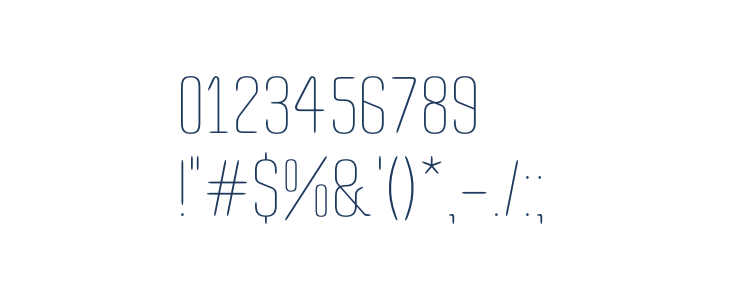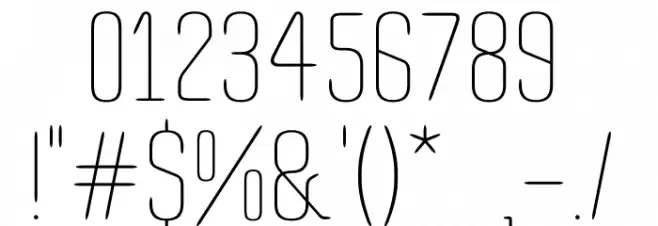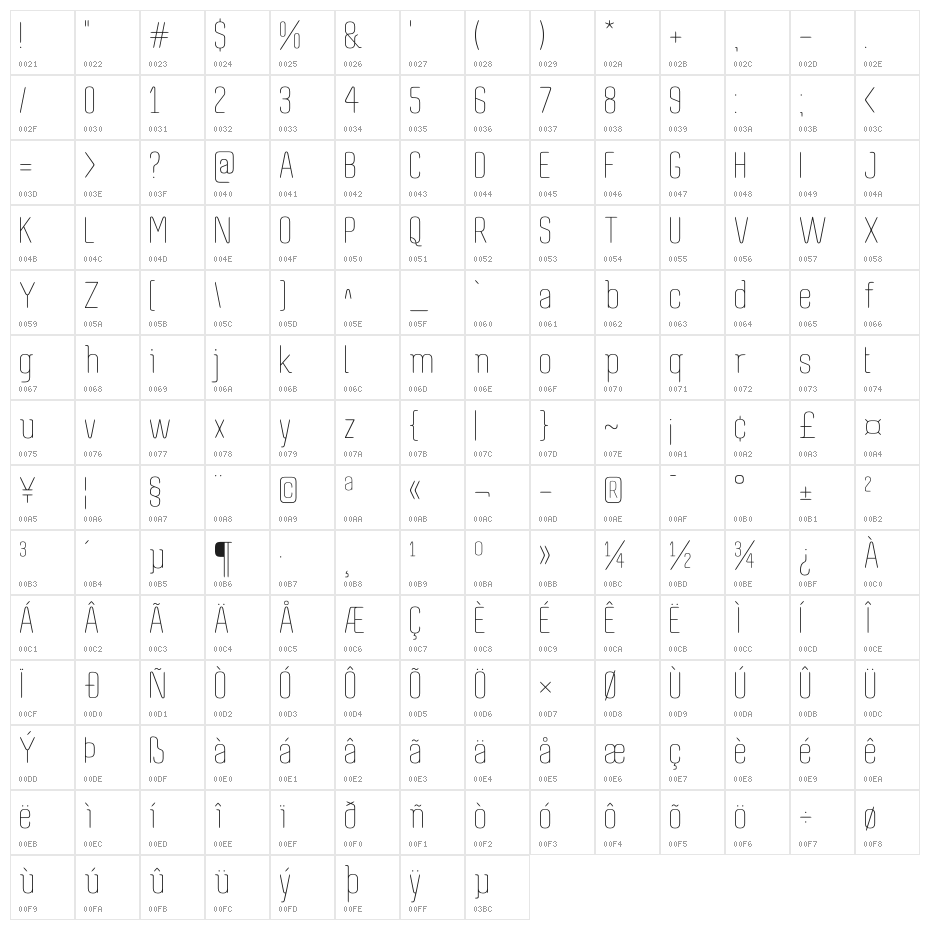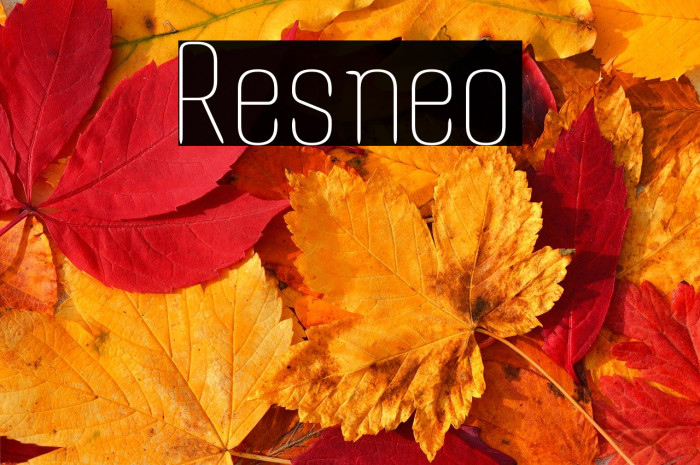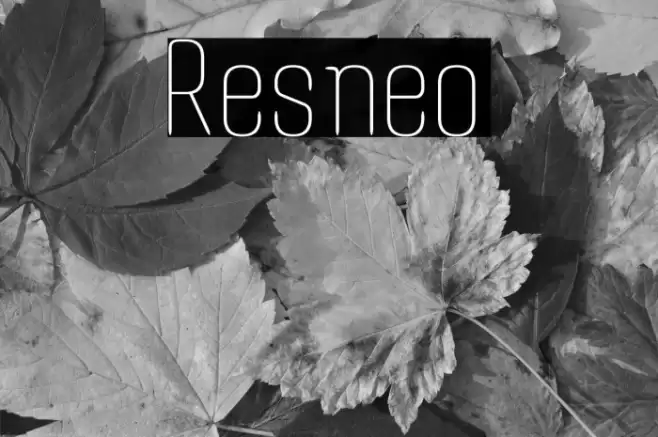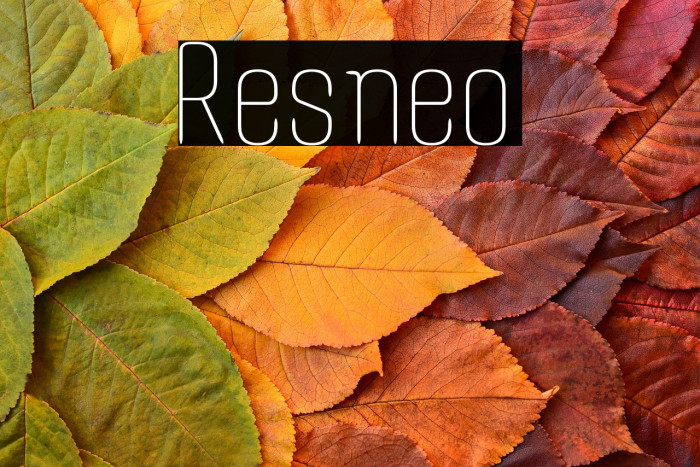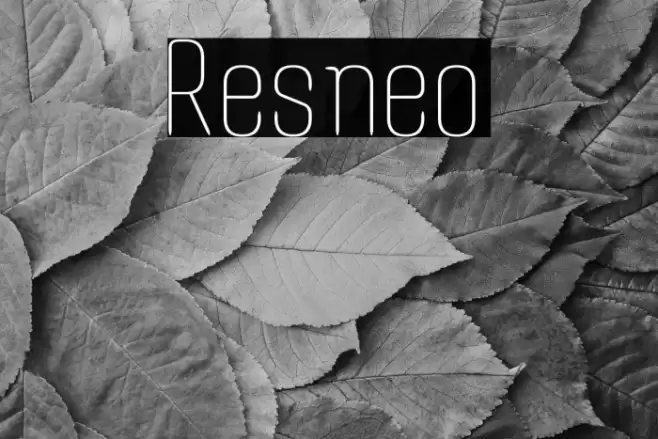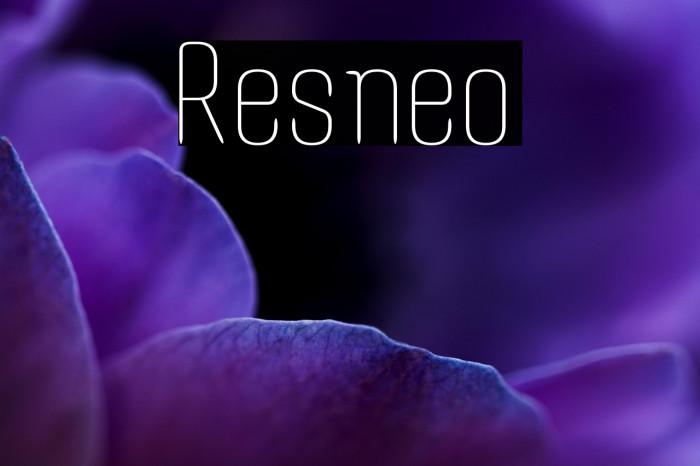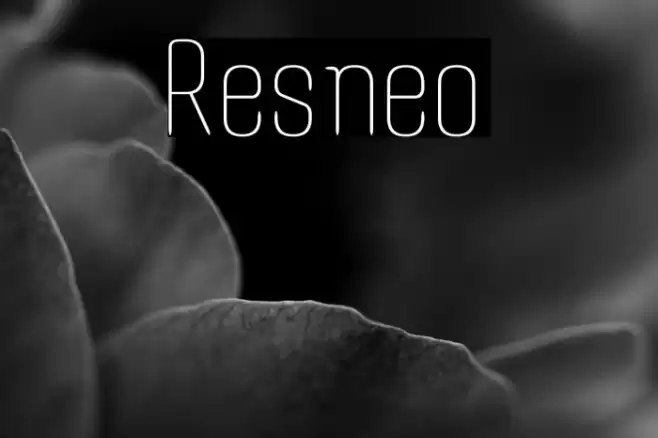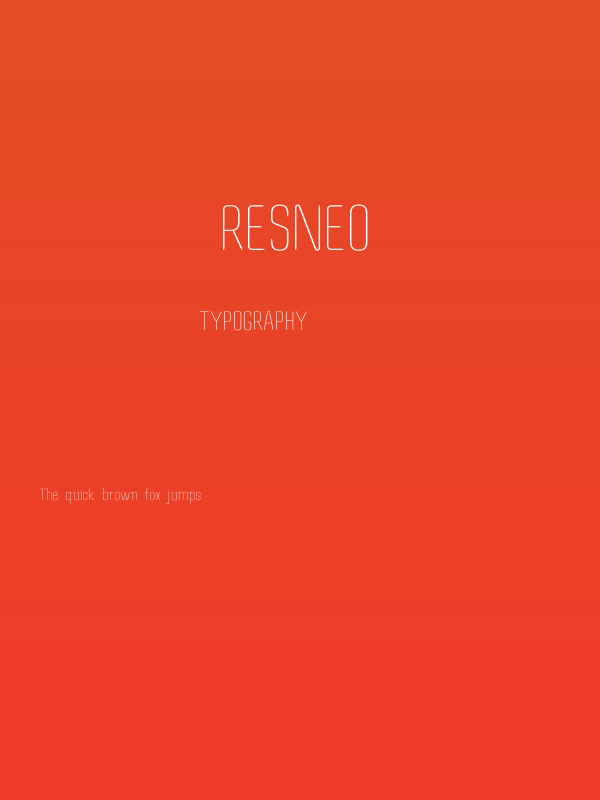
Resneo Font
Resneo Description
This font features a modern and sleek design with a minimalist aesthetic. The characters are tall and narrow, giving it an elongated appearance that is both elegant and contemporary. The lines are clean and consistent, with a uniform stroke width that maintains a sense of balance and harmony throughout the typeface. The uppercase and lowercase letters are well-proportioned, and the numerals are clear and easy to read. Special characters are included, adding versatility to the font's application. Its simplicity and clarity make it suitable for a wide range of design projects.
| Proposed Projects | Ideal for branding, editorial design, web design, and advertising materials. |